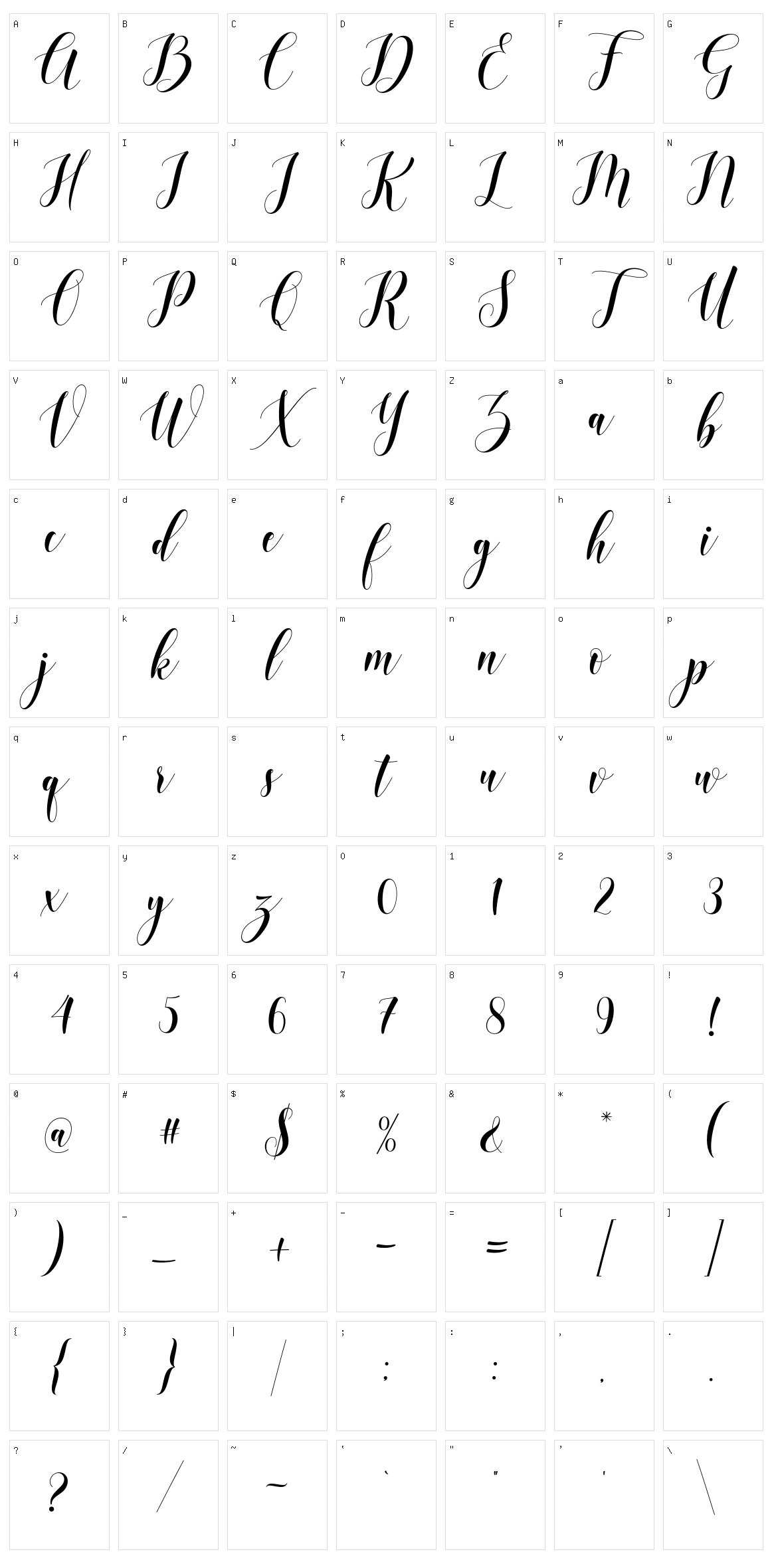
The free font Wellcome is carefully designed by Greentype, showcasing a thoughtful balance of creativity and usability and falls under the Script font style. When you download the ZIP file, it contains only 66.71 KB of font files, making it lightweight and quick to download. Please review the license details below to understand permitted usage and distribution rights. If license information is not available, we recommend using this font for personal projects only or contacting the author directly for commercial usage permissions.